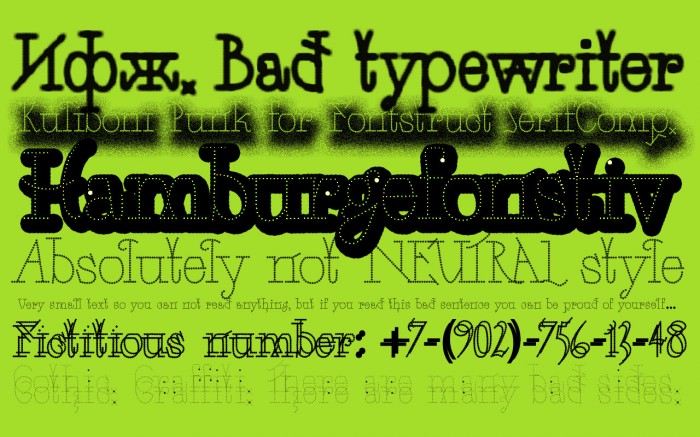
Eclectic font. You can even make a led T-shirt for a party. Cyrillic caps while remaining eclectic refers to its Soviet past.
I'm not satisfied with the Latin caps, and so far I'm thinking about how best to do them.
I heard for a long time that Cyrillic is popular in the fashion industry. But mostly arial and pseudo-Gothic are used (since historically Gothic never had a Cyrillic incarnation).
@Dmitriy Sychiov (Sychoff) - Actually, I like the Latin capitals -- they have a playful feel about them. Understanding that this is a WIP, the E is a bit narrow, and the I & L are too similar to each other.
The lowercase letters are more plain and staid, however -- they could use some of the same playful attitude of their bigger brothers & sisters! :^)
All your clean and dotted fonts amaze me, Sychoff (with and without Cyrillic). Keep it up!
There are 3 X's in the letter...
You work very well with the dots :)
Beautiful, interesting and unusual font. I like this @
Simply beautiful, so artistic, light and modern, fun and very charming, and a pleasure to read. You are developing into a dot master. Congratulations on the TP :)